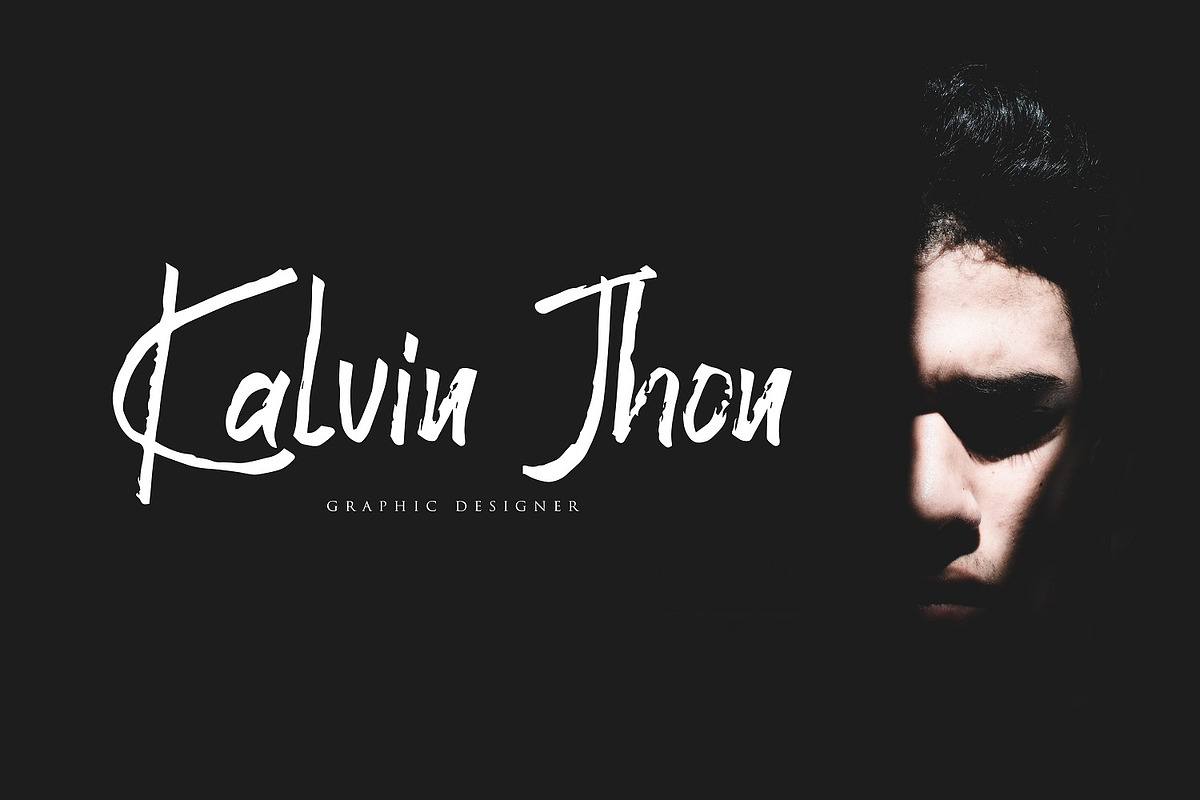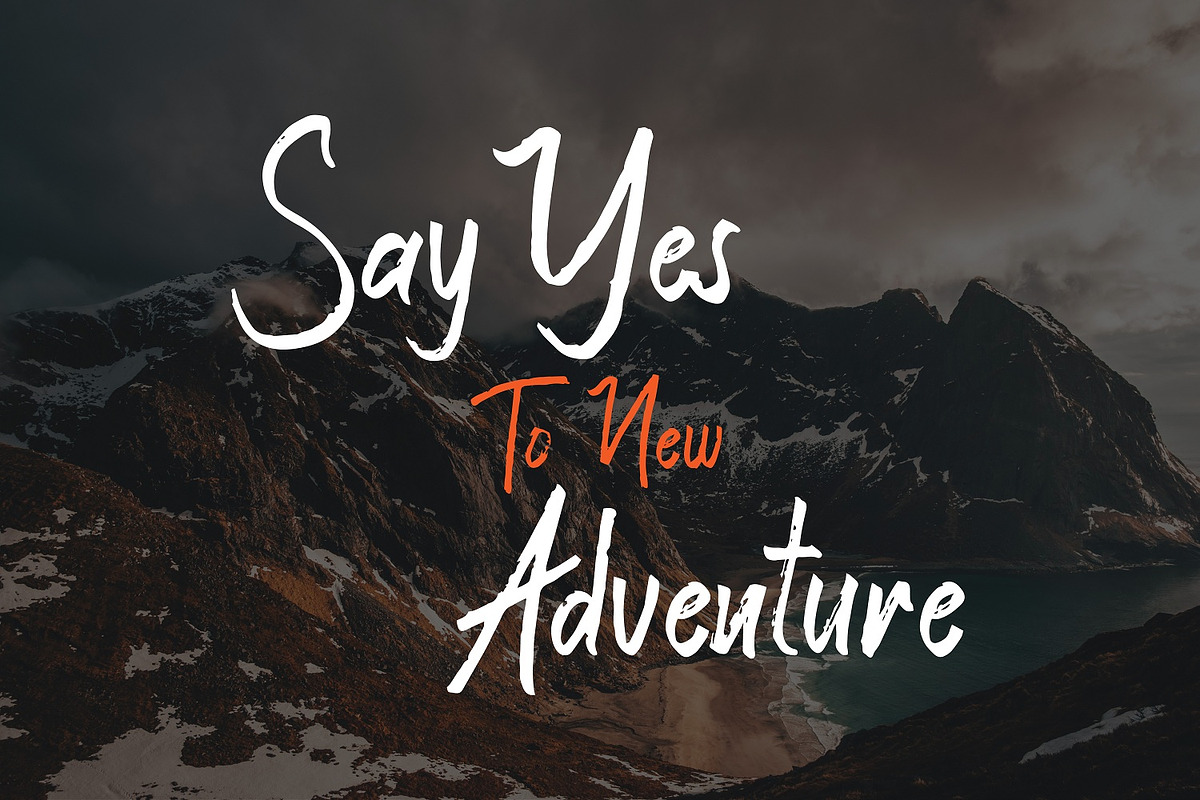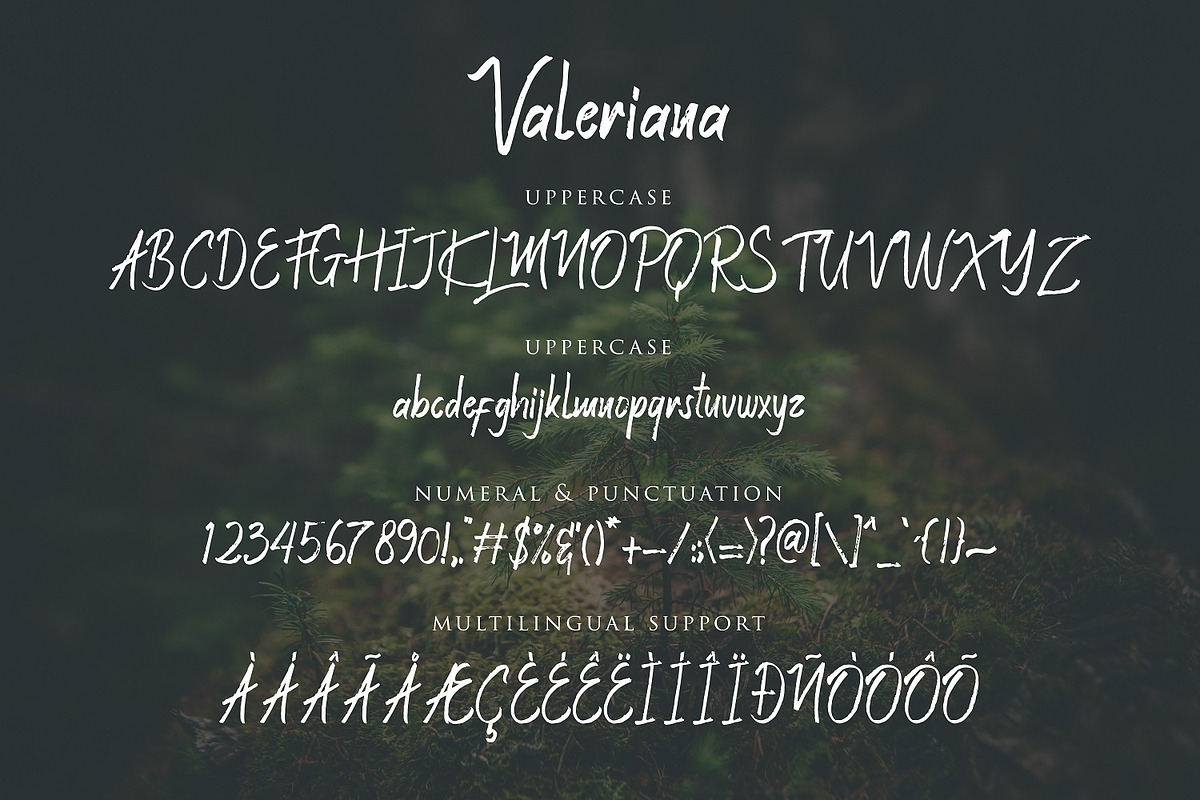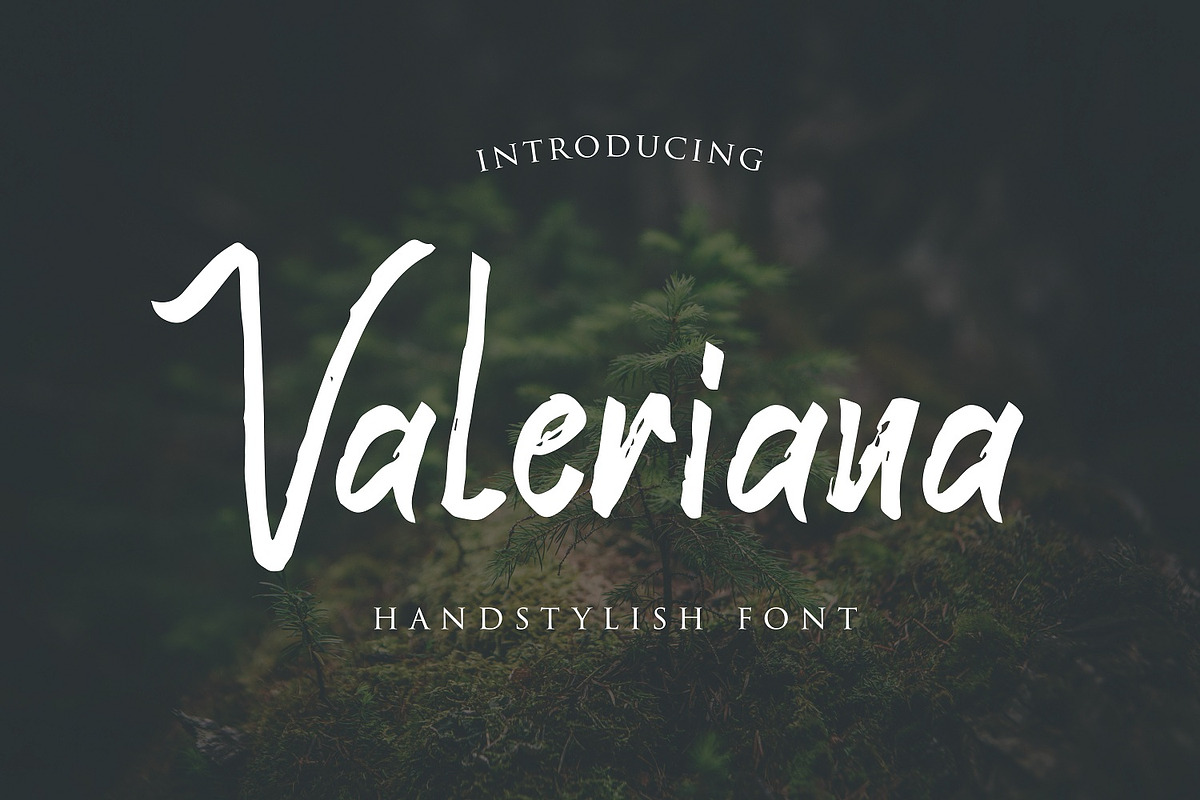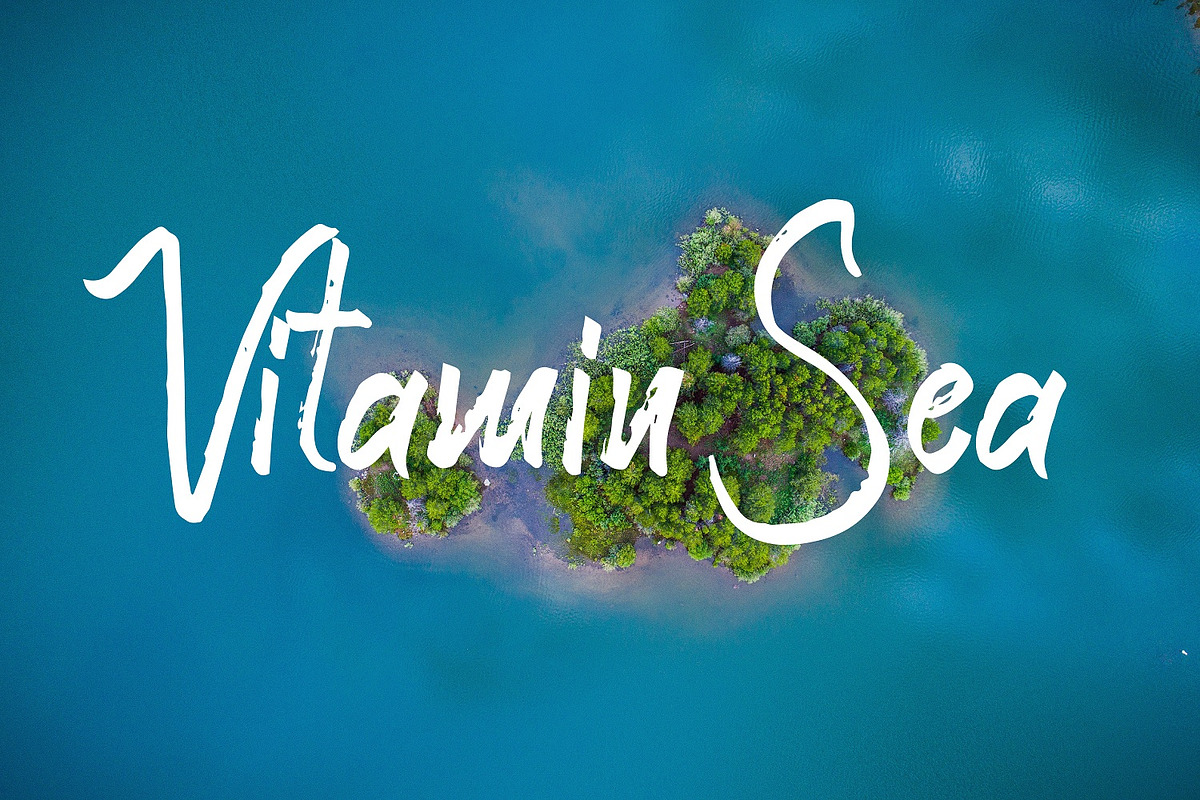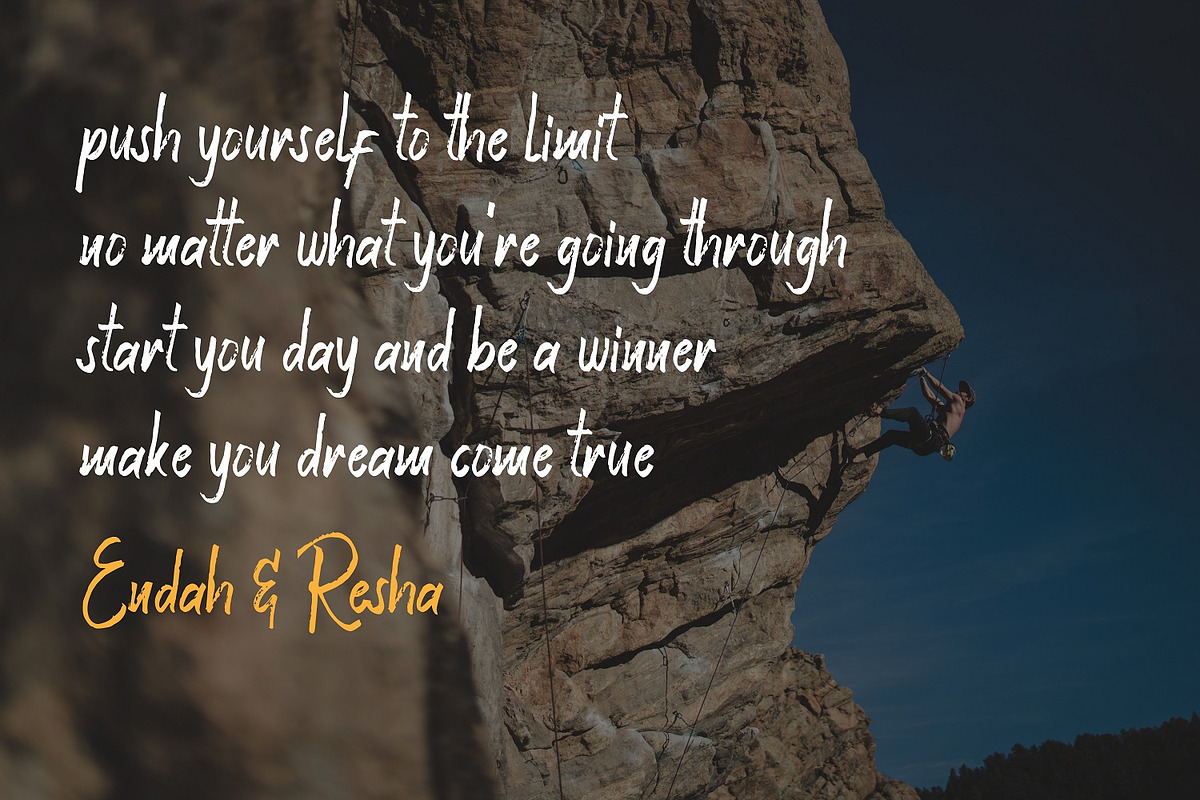
Valeriana Handstylish Font
Hi... Say hello for Valeriana Handstylish Font. This font has a natural brush style. This font is great for your next creative project such as Logotype, printed quotes, invitations, cards, product packaging, headers, Letterhead, Poster, Apparel Design, Label, and etc.
Language Support: Afrikaans, Albanian, Croatian, Danish, Dutch, Estonian, Finnish, French, German, Hungarian, Italian, Norwegian, Polish, Portuguese, Slovenian, Spanish, Swedish, and Zulu.
Why Valeriana Handstylish Font is worth a look
Valeriana Handstylish Font by sabrcreative fits naturally into Branding, posters, packaging, typography.